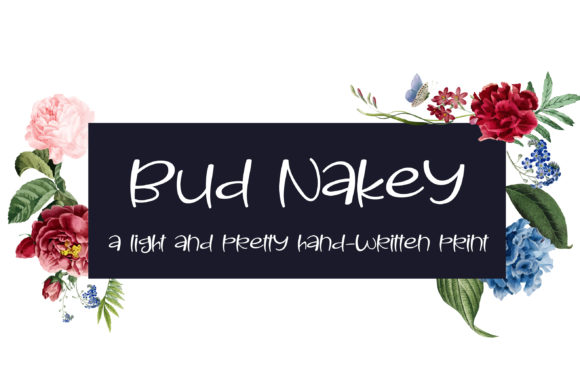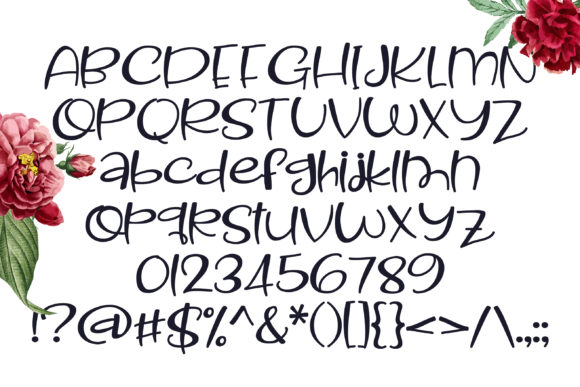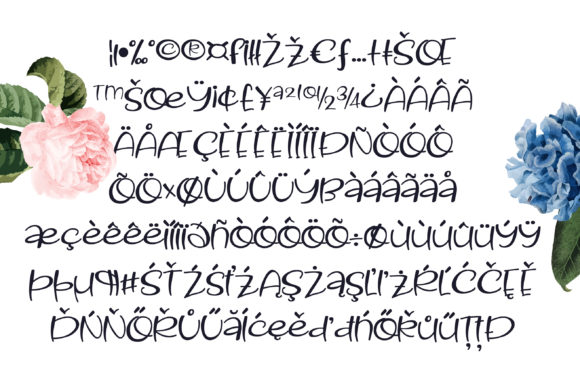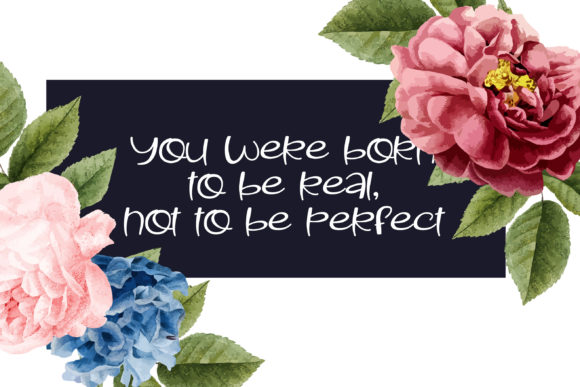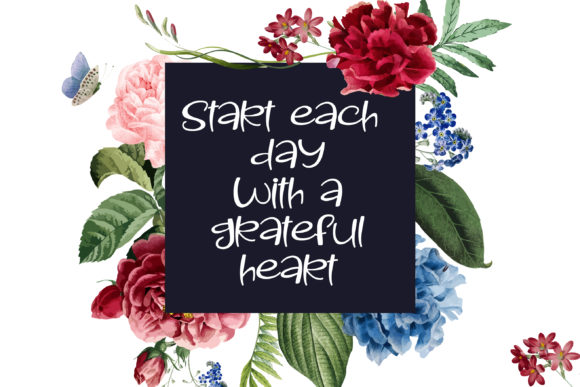
HomeScript FontsBud Nakey Font Script Fonts Bud Nakey Font FacebookXPinterestWhatsApp Bud Nakey Font Poster 2 Bud Nakey Font Poster 3 Bud Nakey Font Poster 4 Bud Nakey Font Poster 5 About Bud Nakey Font This casual handwritten script has a lowercase that is raised up so there are no descenders. DOWNLOAD ON CREATIVE FABRICAThis font is sold and delivered by Creative Fabrica. Font Canyon may earn a commission if you buy through this link. People also explored Bakery Font Light Talk Font Arshelina Font Sky Bloom Font Strawberry Font Thenicle Outline Semi-Bold Font Save Love Font Vleugel Monogram Font Nowwela Font 376 0 TagsBud Nakey Font Previous articleRoxxette FontNext articleMagnetic Font LEAVE A REPLY Cancel reply Comment: Please enter your comment! Name:* Please enter your name here Email:* You have entered an incorrect email address! Please enter your email address here Website: Save my name, email, and website in this browser for the next time I comment. Personal Use Free Bajt Rounded Personal Use Free Read more about this font Vanity Personal Use Free Read more about this font Numberpile Personal Use Free Read more about this font Caramel Latte Personal Use Free Read more about this font BLOG Modern Sans-Serif Fonts That Brands Love in 2025 In 2025, modern sans-serif fonts remain a top choice for brands looking to project clarity, professionalism, and... Transform Your Website: Elevate Your Typography with 7 Best Web Font Generators 5 Fonts That Will Dominate Design Trends in 2026 Using Fonts in Digital Marketing: Tips to Strengthen Your Brand Identity